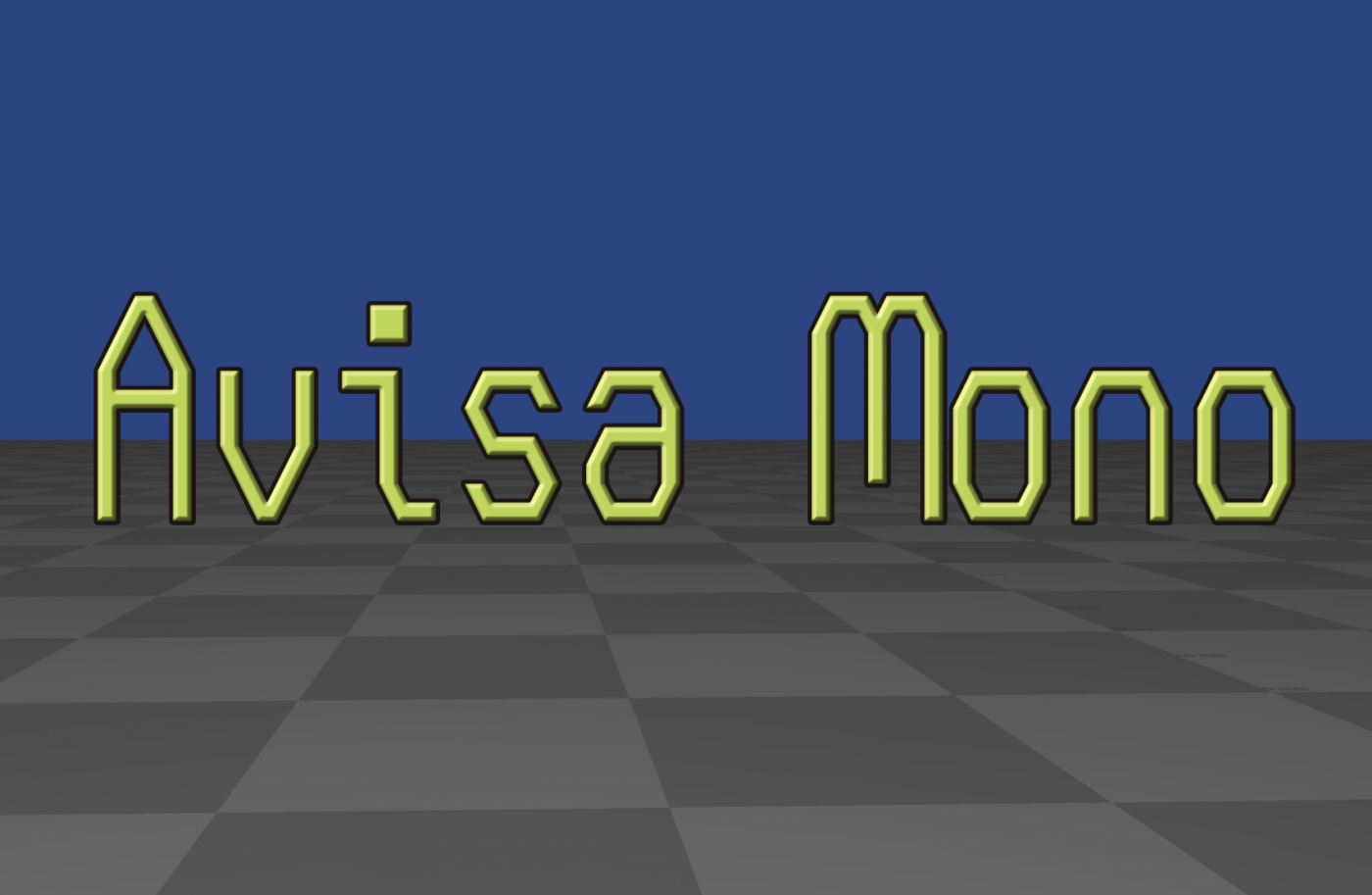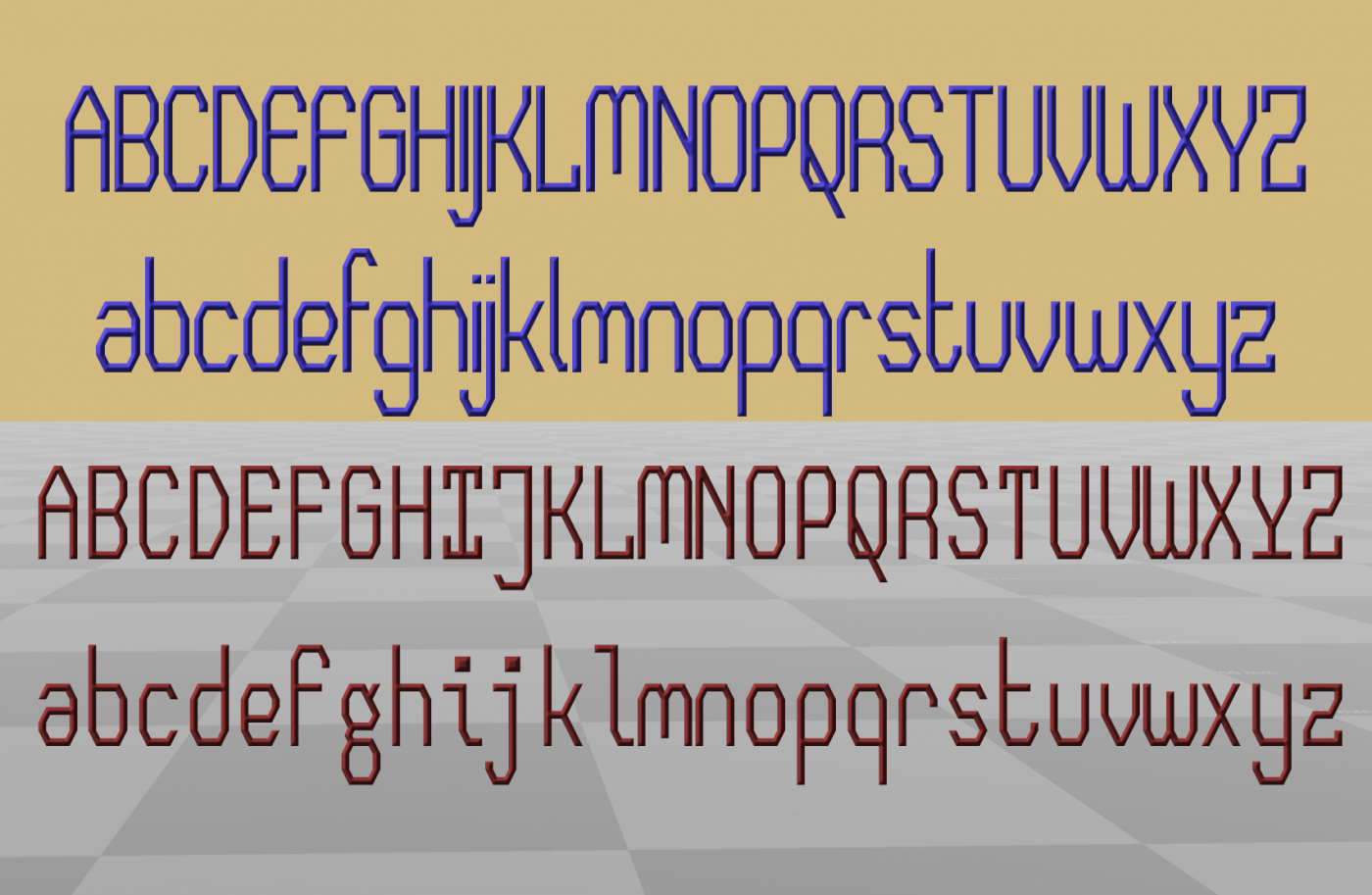
• Avisa's monospaced brother.
Avisa's monospaced brother. It ended up taking on an entirely different character from the original. Will do some coding with it and see how it holds up. (many features such as big punctuation marks are designed in this font specifically with coding in mind.)
basic sample (not sure why the top of the parentheses are being cut off by the IDE program, but maybe the parentheses are too large anyway)
The font looks great! My only suggestion is to move the Vertical Line "|" to the center of the glyph.
As for the top of the parentheses being cut off, it can happen because your Line Height is too low. Check the Line Height switch in the View tab With Expert Mode on and adjust the line height to the top of the parentheses.
It seems like that the line labeled Top corresponds with the Windows Ascent, and not the Capital Height.
Adjusted | character, and adjusted the Line Height. Thank you for the help my friends.